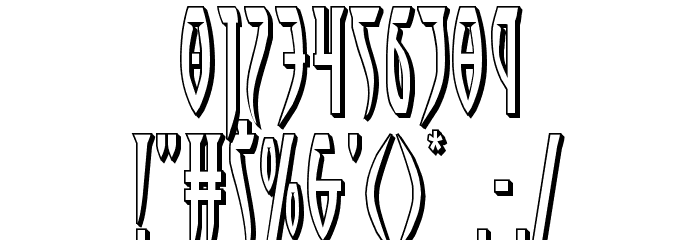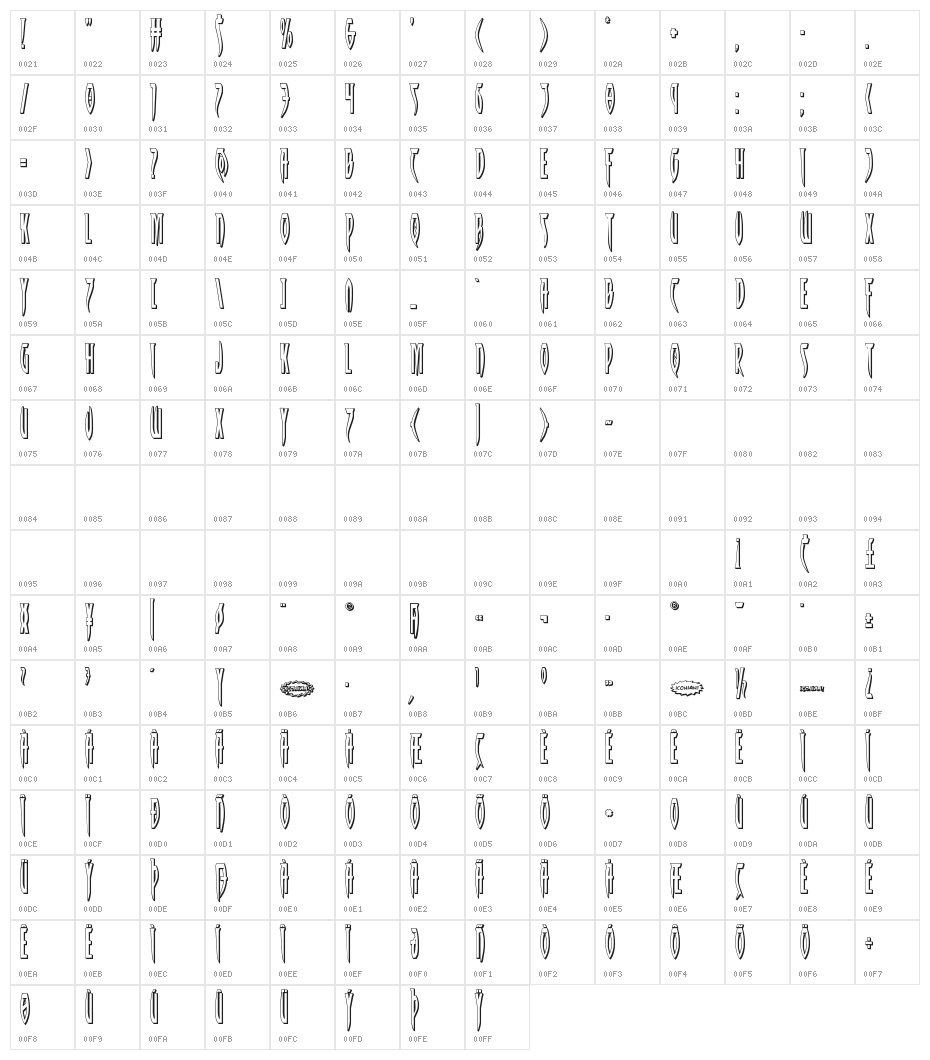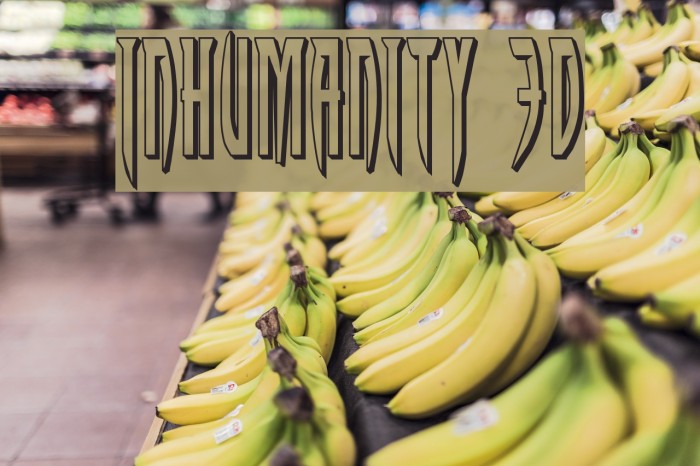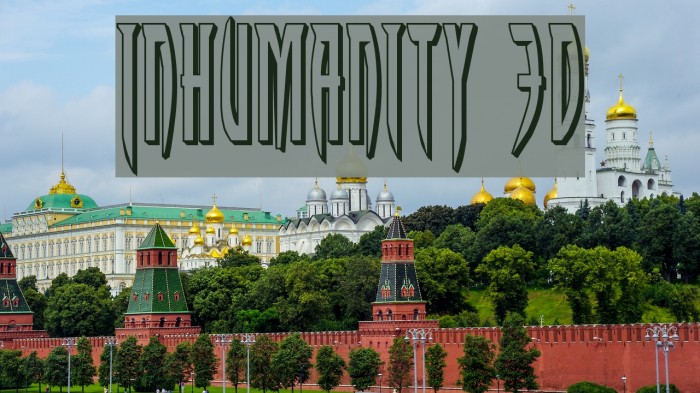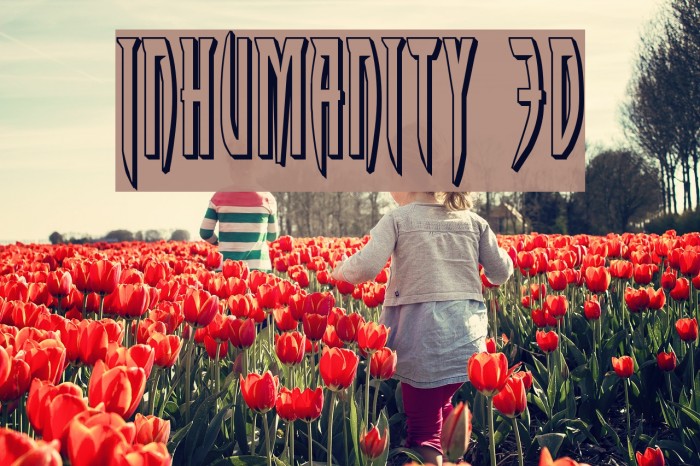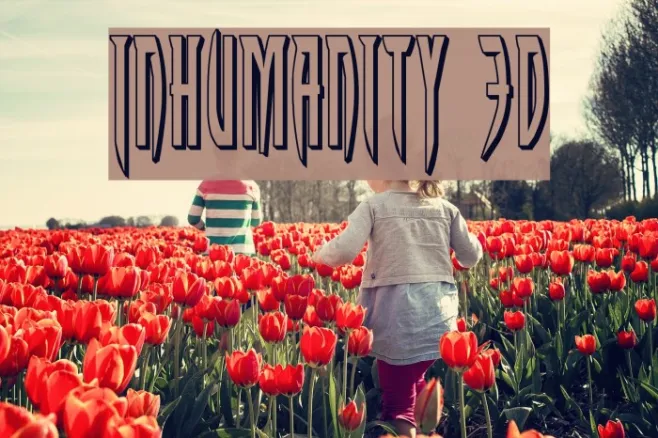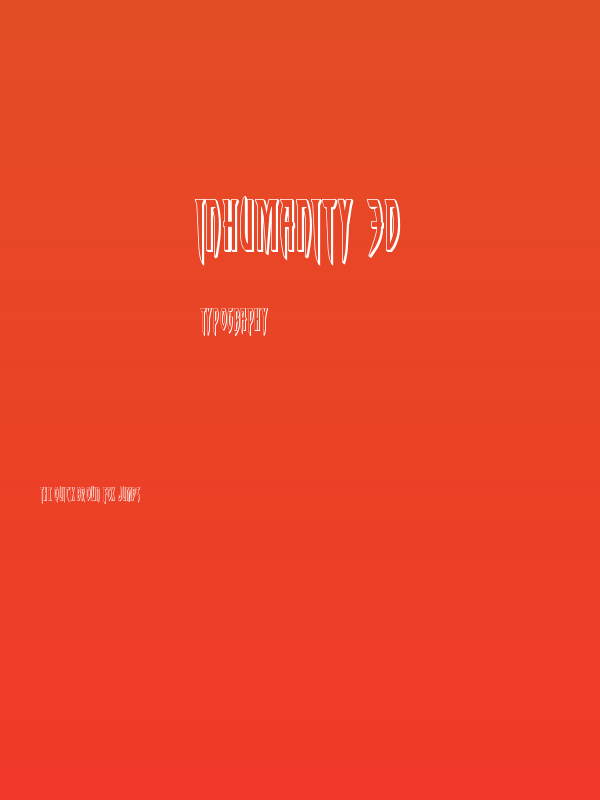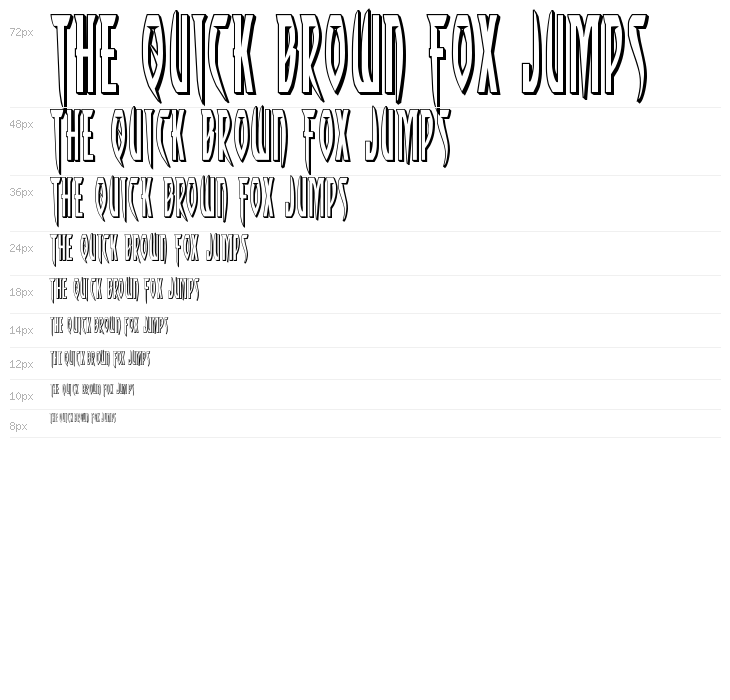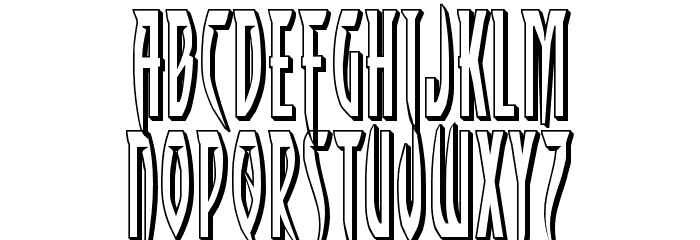
Inhumanity 3D Font
Inhumanity 3D Description
This font features a bold, three-dimensional appearance with sharp, angular lines and a distinct shadow effect that gives it a striking, futuristic look. The characters are tall and narrow, with a consistent width that creates a uniform appearance across the alphabet. The uppercase and lowercase letters maintain a cohesive style, with the uppercase letters exhibiting a slightly more pronounced 3D effect. The numbers and special characters are designed to match the overall aesthetic, ensuring a seamless integration in any text. This font's unique style makes it ideal for projects that require a modern and edgy feel.
| Overall Style | Futuristic, Edgy |
| Proposed Projects | Ideal for video game titles, sci-fi movie posters, tech branding, and edgy graphic designs. |